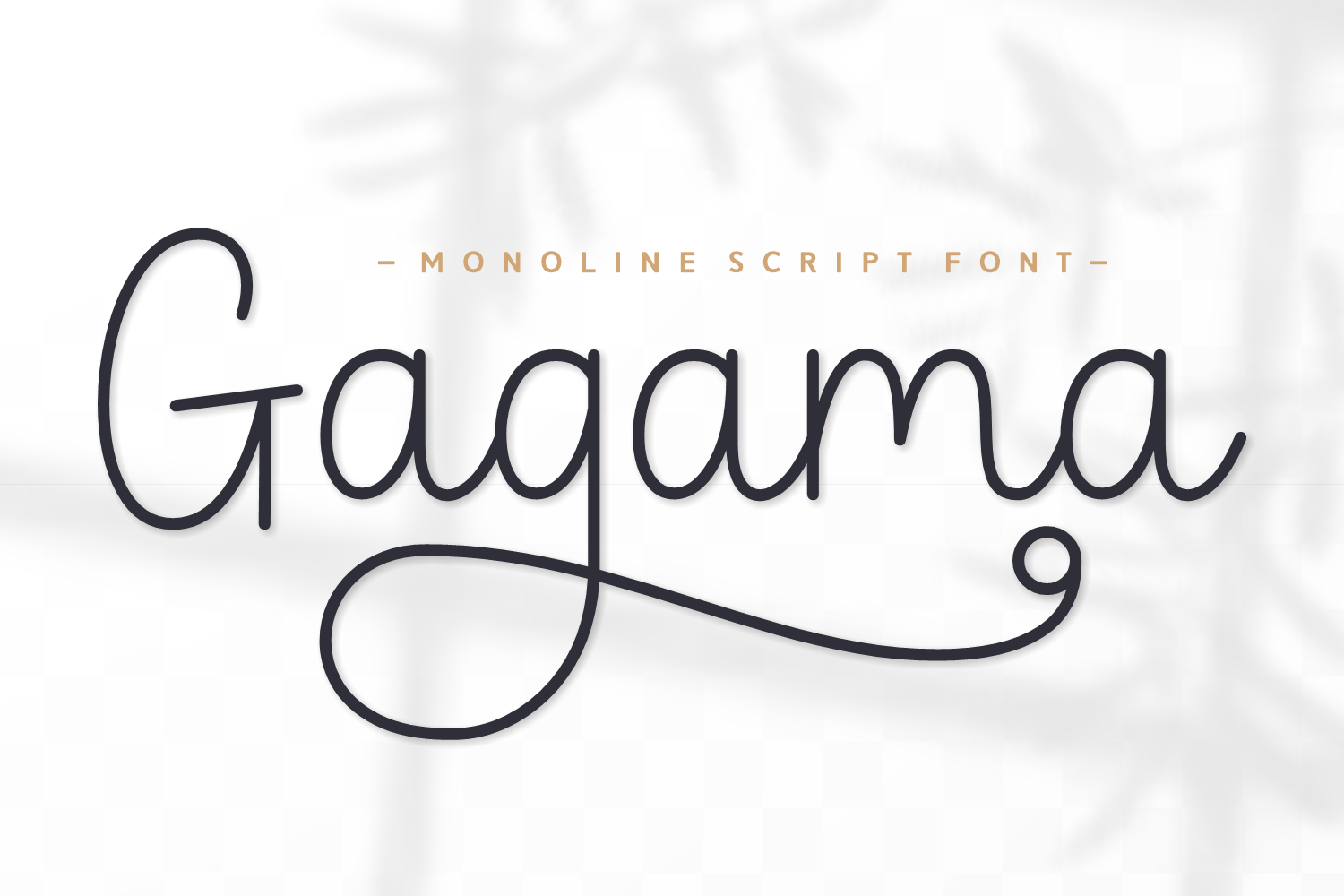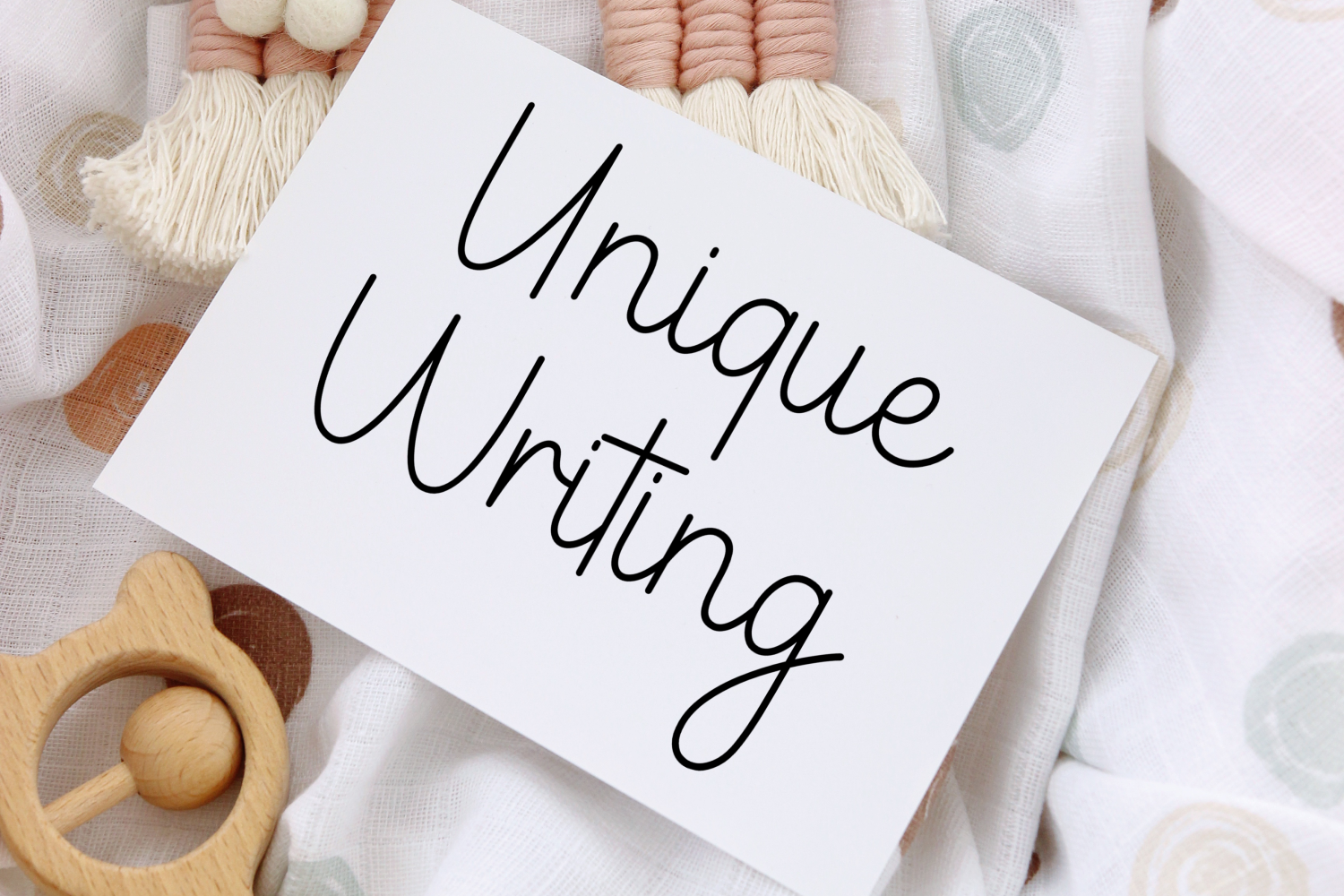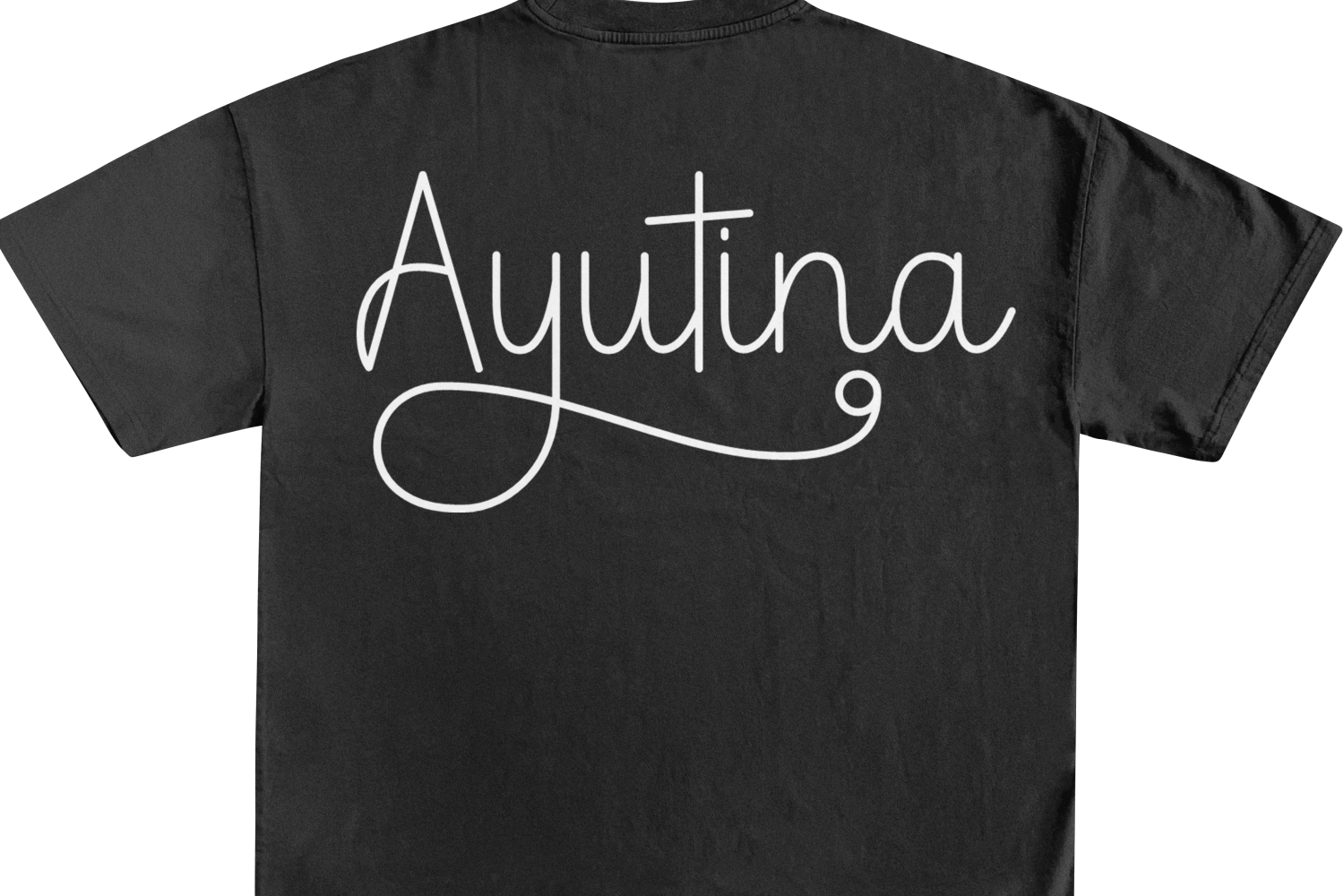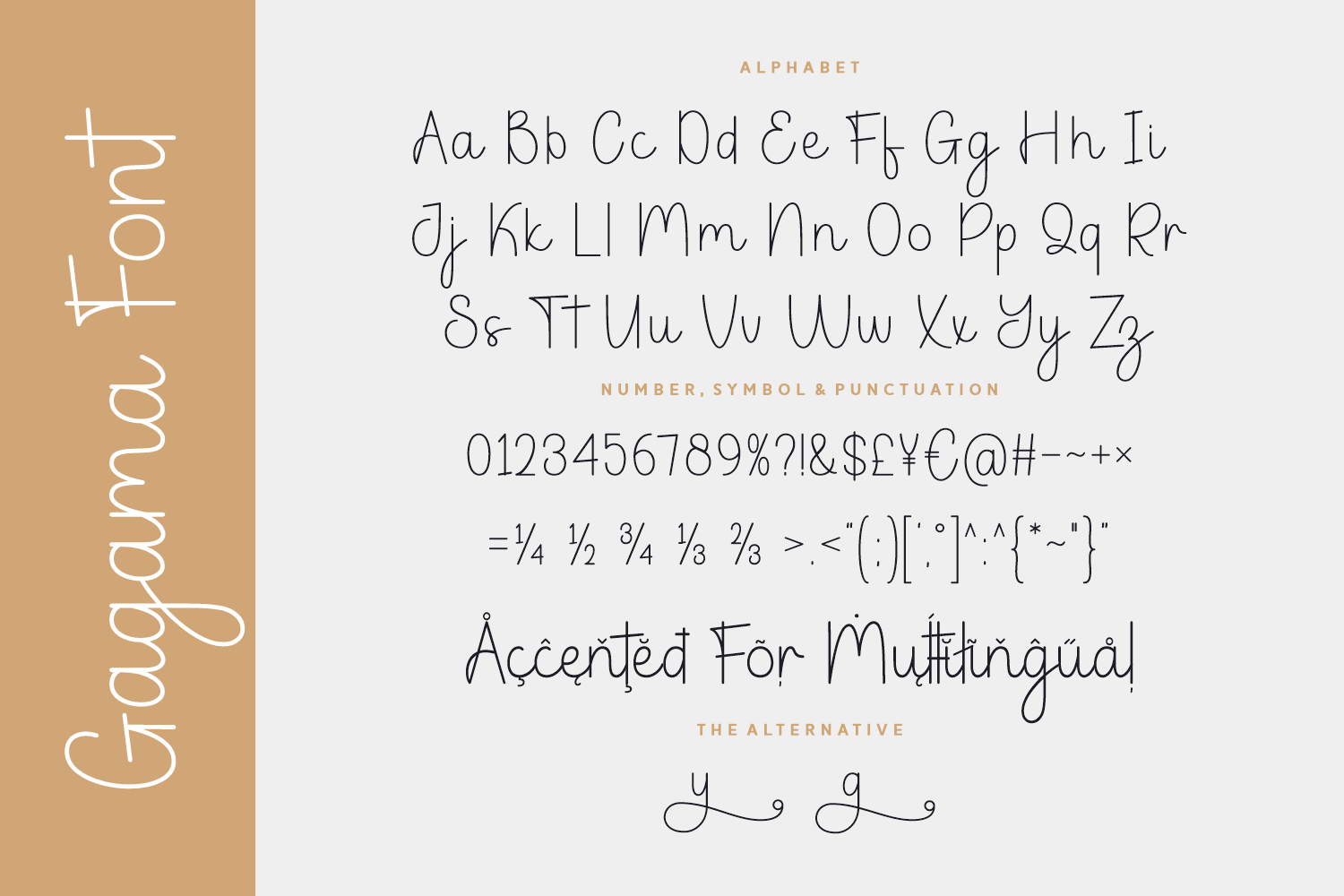
Gagama is a clean and stylish monoline script font that blends simplicity with subtle charm. With its smooth, consistent strokes and flowing curves, this typeface is ideal for logos, modern stationery, minimalist branding, quotes, and feminine-themed projects. Gagama’s elegance makes every word feel polished and personal.